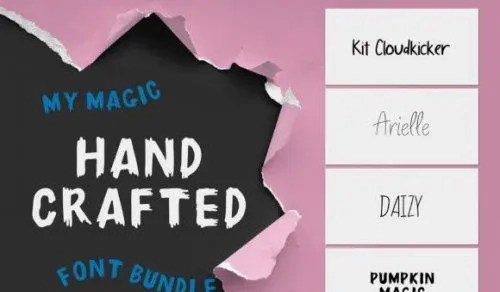
My Magic Hand Crafted Font Bundle
Introducing the My Magic Hand Crafted Font Bundle, a unique collection of fonts designed to bring a personal touch to your projects. This bundle features a variety of styles, including script, sans-serif, and decorative fonts that are perfect for a wide range of applications.
• Multiple font styles: script, sans-serif, and decorative
• Various weights for added versatility
• Handcrafted design for a unique aesthetic
• Weights: Light, Regular, Bold
Ideal for branding, logos, web design, print materials, and user interfaces. Combine different styles for a creative and cohesive look.